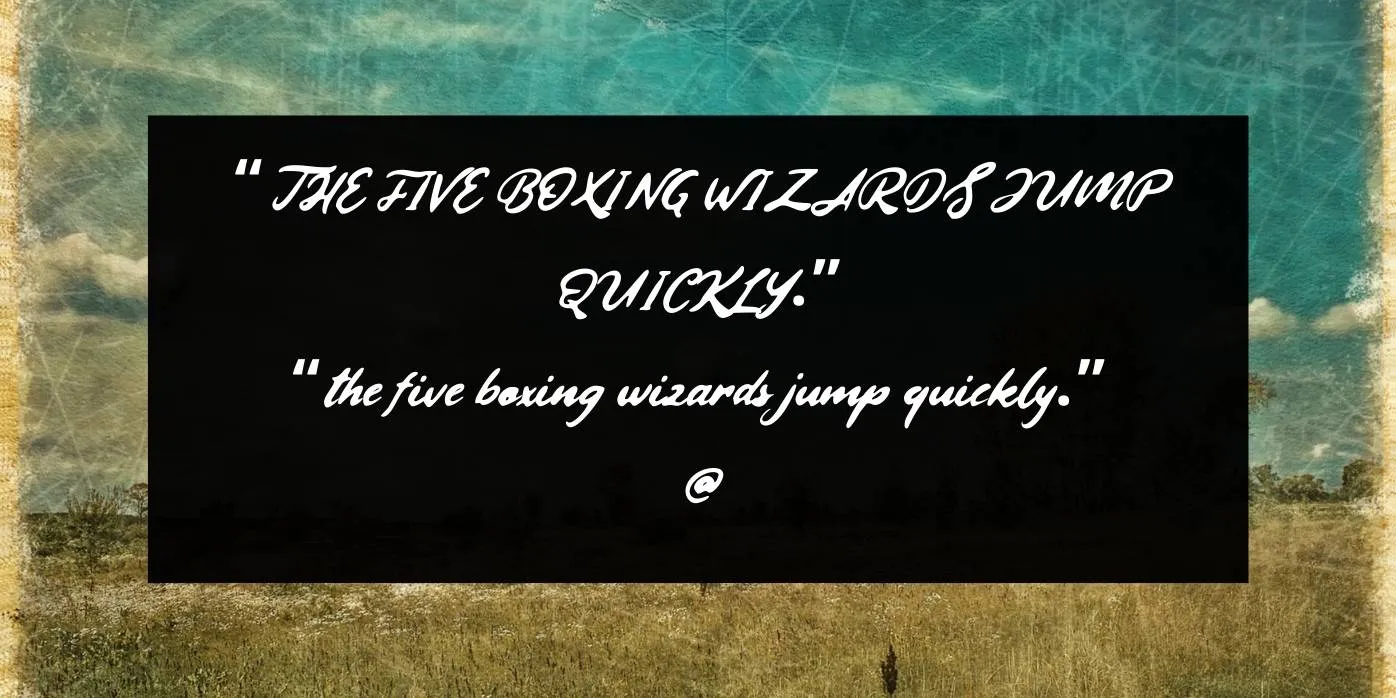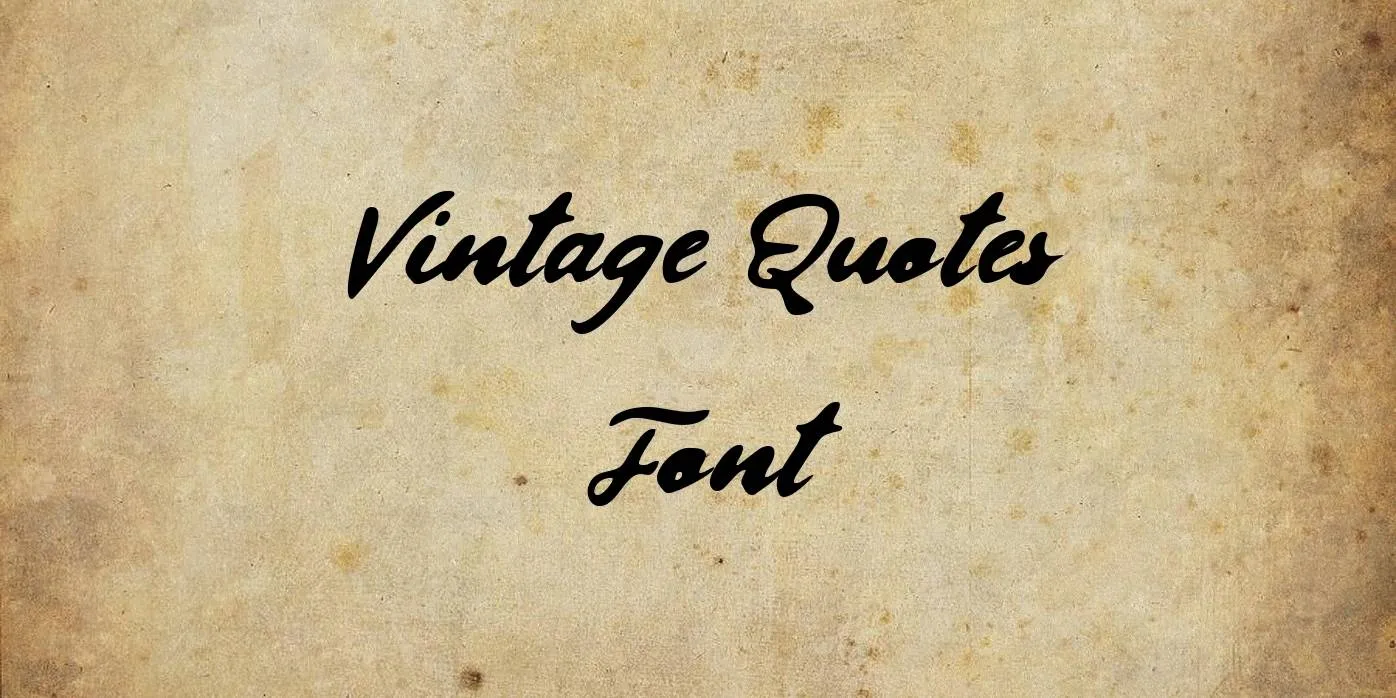
Vintage Quotes Font
It is a very unique and beautiful font. It was designed by Muhammad Sirajuddin. This font falls under version 1.00 font creator 12.0.0.2545 64-bit. Its initial release date is November 14, 2019.
All rights are reserved by letter Siro studio. Vintage Quotes Font is a handwritten font it was inspired by the 20th-century it was inspired by Italian calligraphers. This font has the ability to pair fonts with smash bros font. It also is used in online generator tools which makes your work easy and efficient.